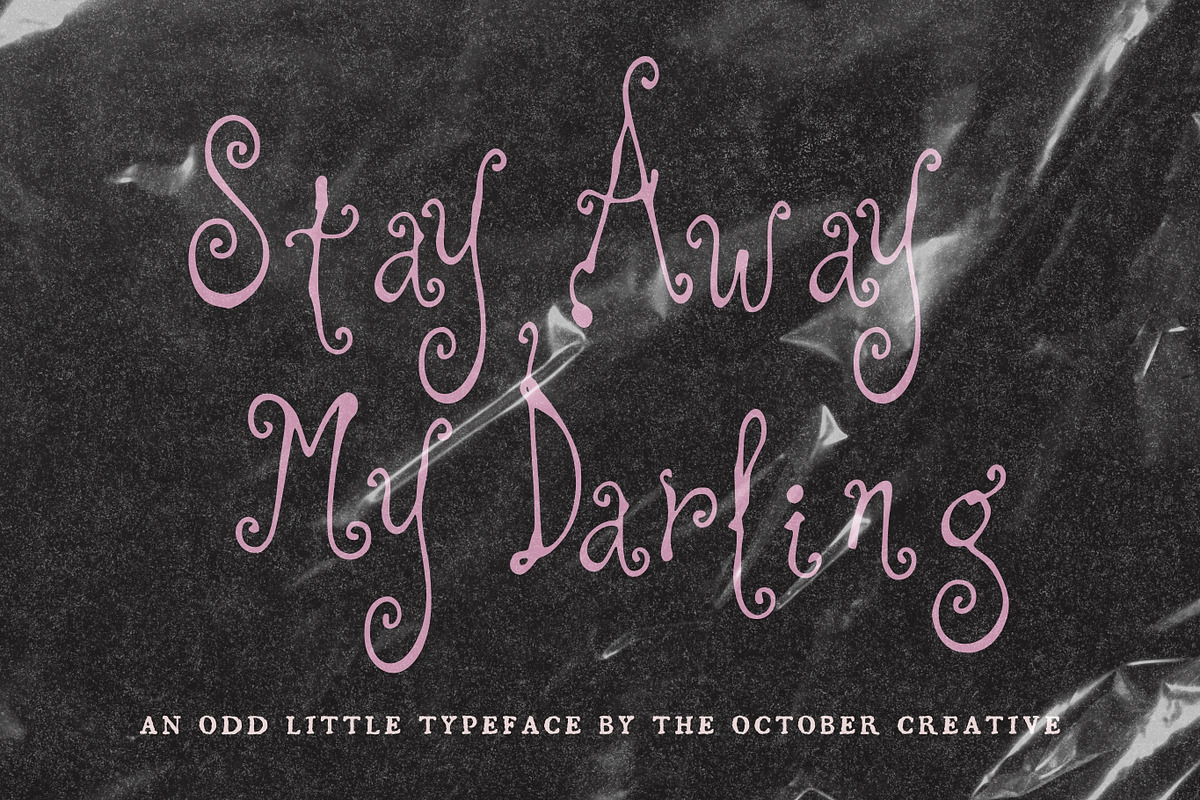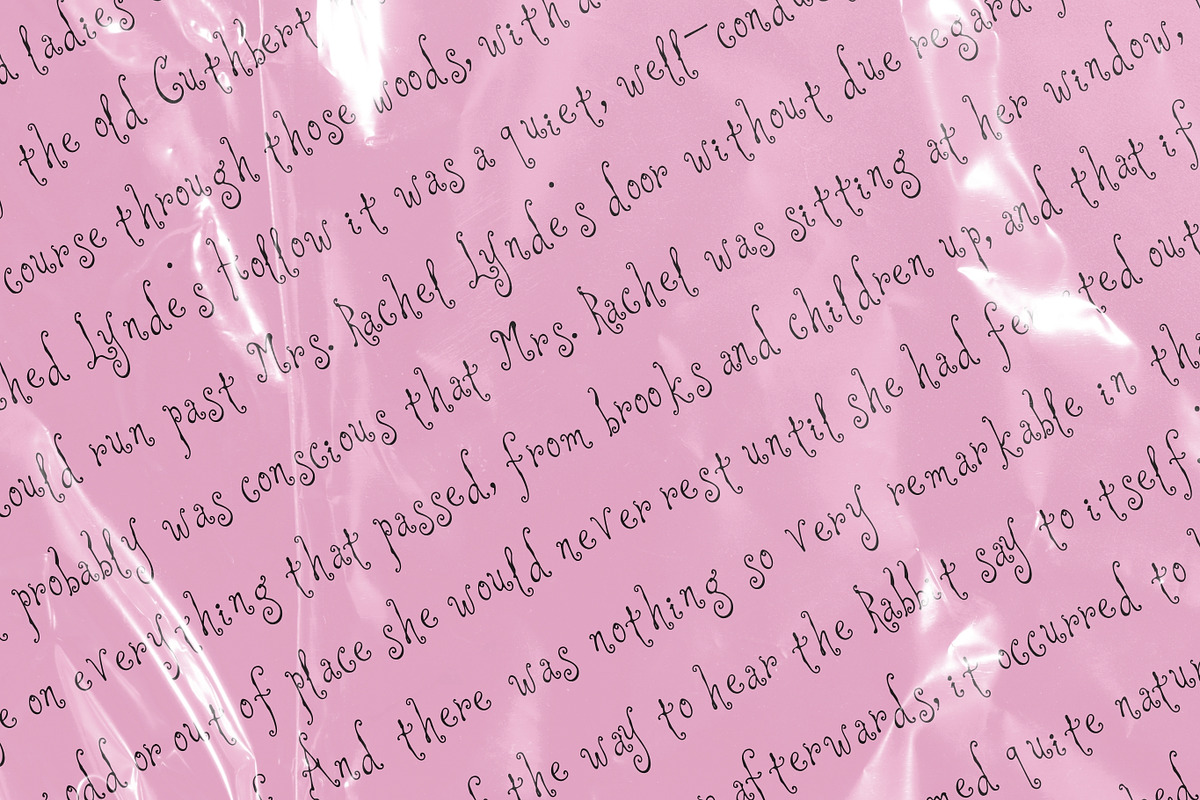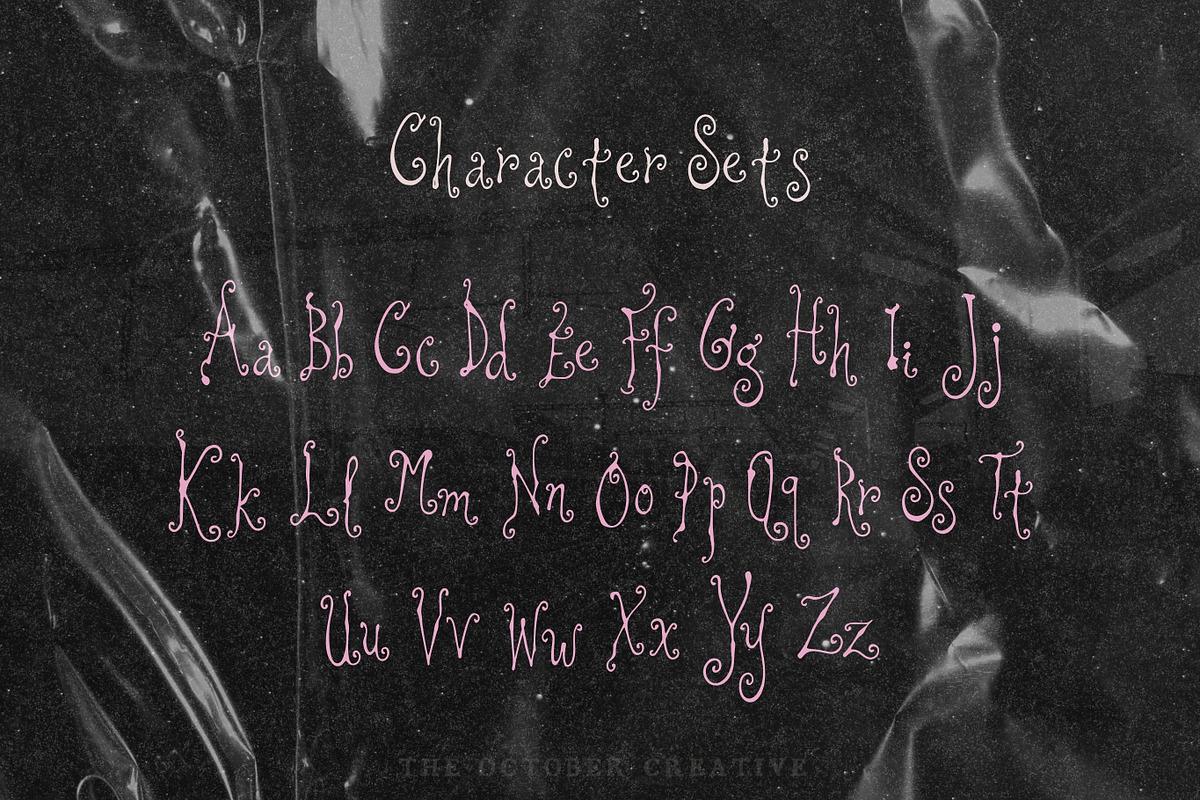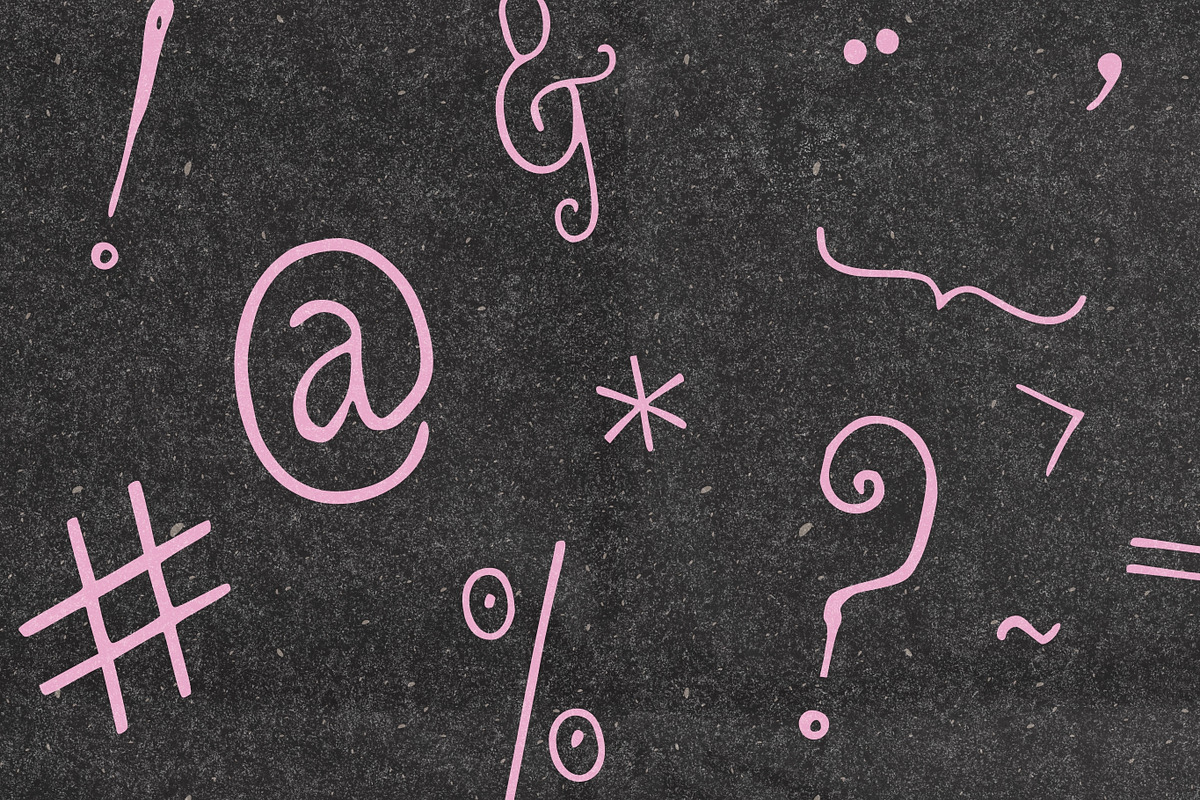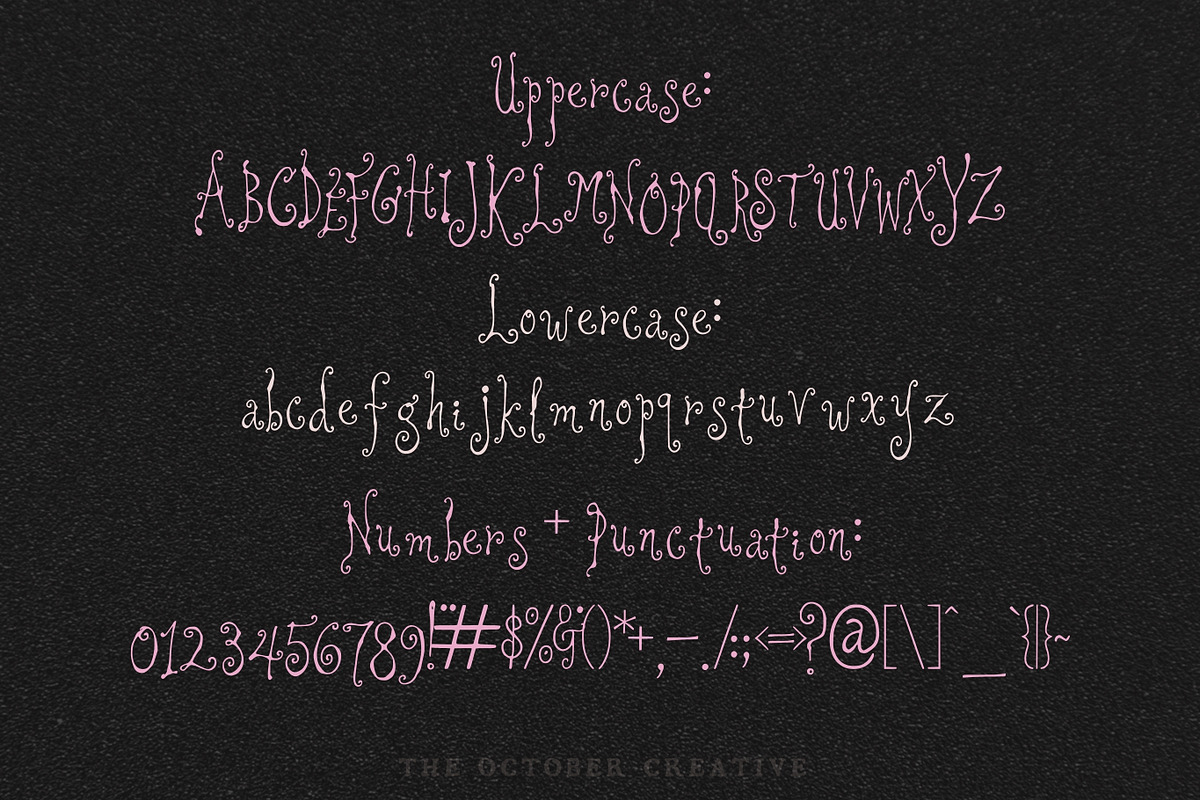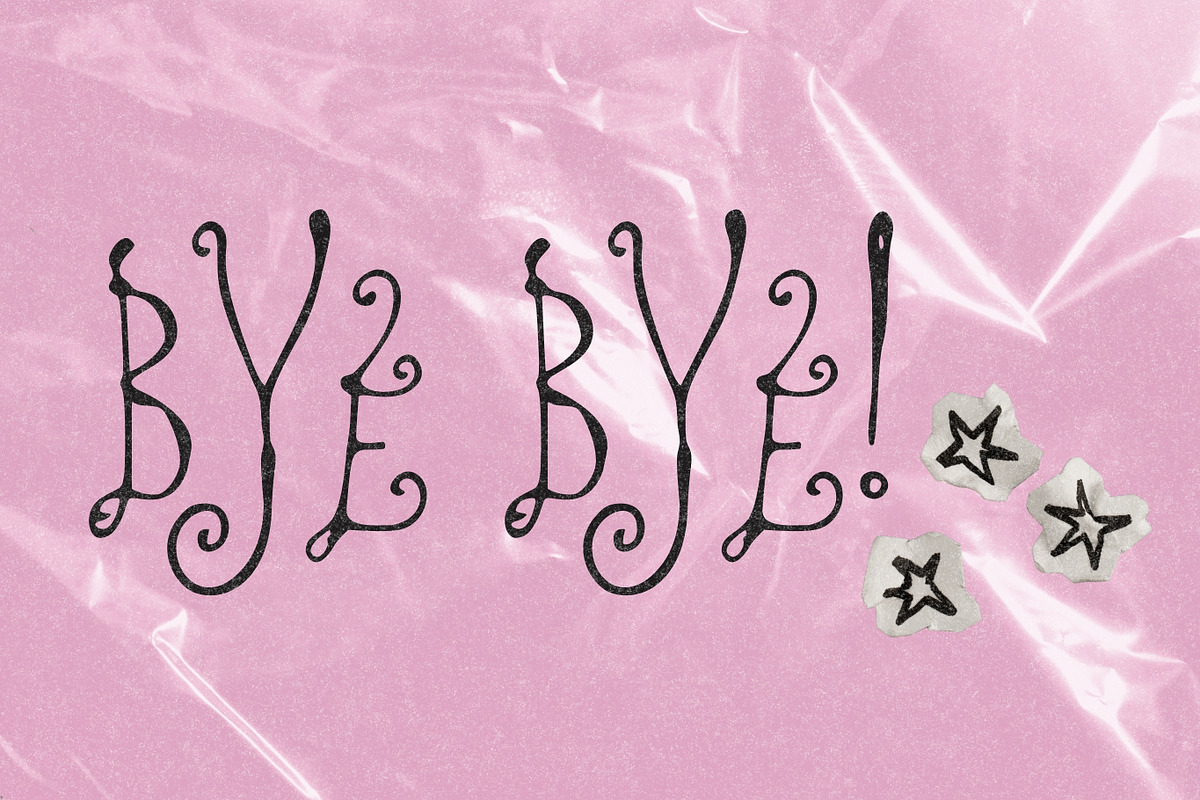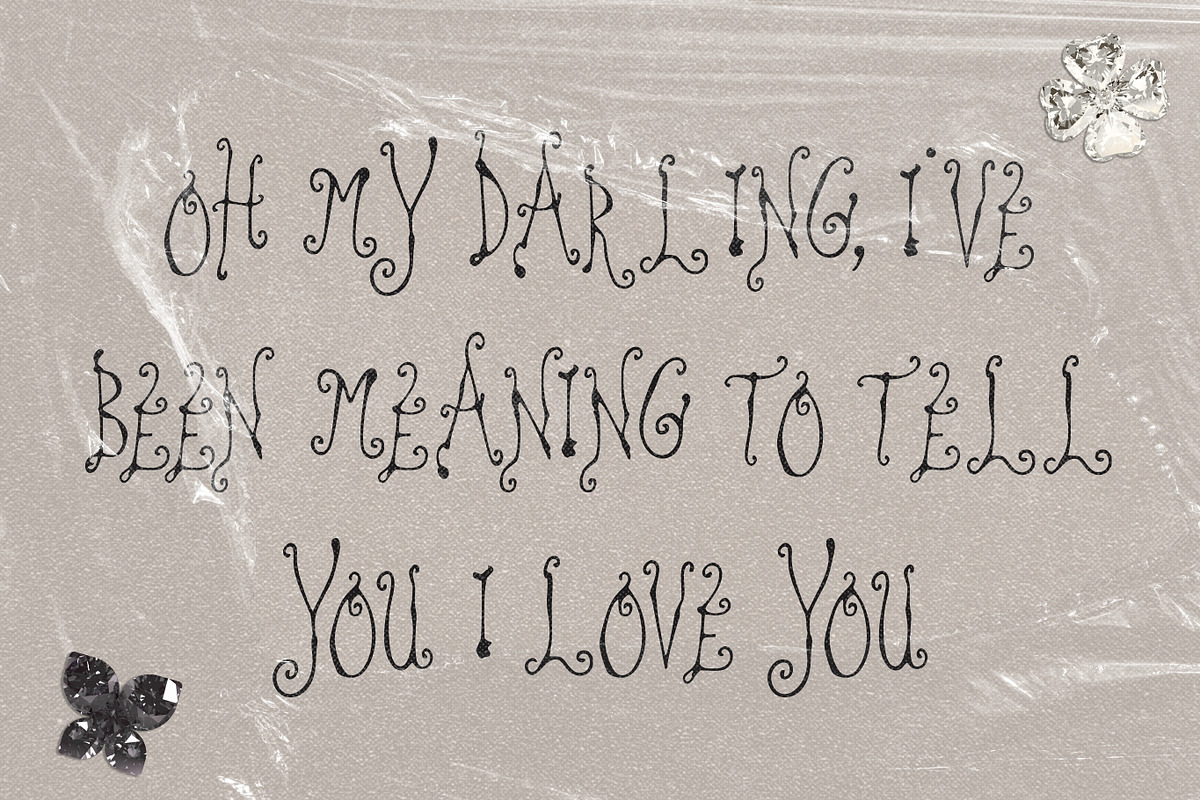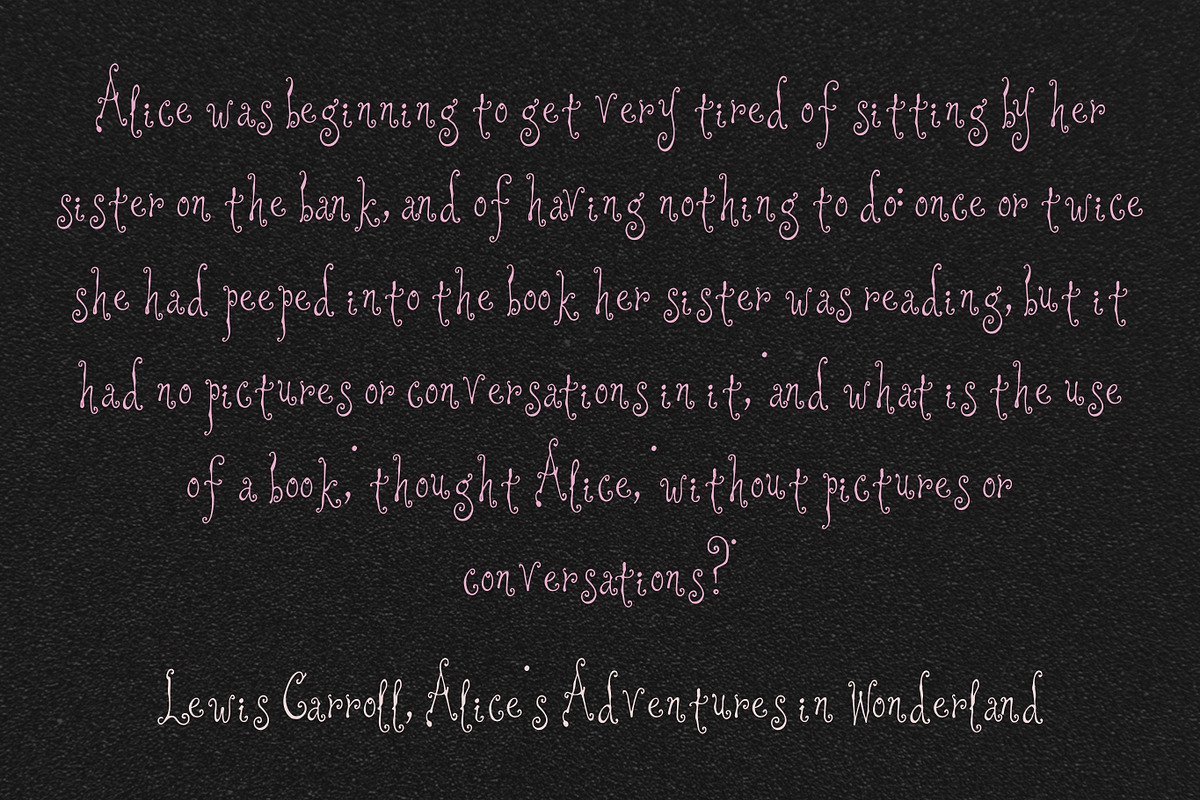
Stay Away My Darling Weird Font
Stay Away My Darling is a spooky cute font with thin letters covered in little curls and dots. It's made for Halloween party invitations, trick-or-treat signs, candy labels, and spooky season decor.
CHARACTER SET
Uppercase A to Z, lowercase a to z, numerals 0 to 9, and every standard keyboard punctuation mark and symbol: ! " # $ % & ' ( ) * + , - . / : ; < = > ? @ [ \ ] ^ _ ` { | } \~
Curly quotes and apostrophes (‘ ’ “ ” ‚ „), en and em dashes, an ellipsis, and a bullet.
Accented letters: À Á Â Ã Ä Å Ç È É Ê Ë Ì Í Î Ï Ñ Ò Ó Ô Õ Ö Ù Ú Û Ü and their lowercase forms.
LANGUAGES SUPPORTED
English, plus the accented vowels, Ñ, and Ç used in names and everyday words in Spanish, French, Italian, Portuguese, German, and Dutch. Not included: ß, Æ, Ø, Œ, and the upside-down ¿ and ¡.
SPECIAL CHARACTERS